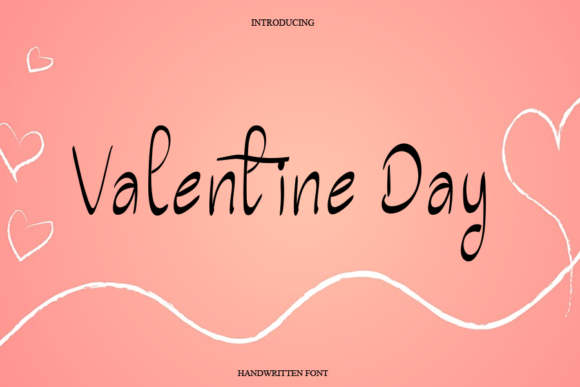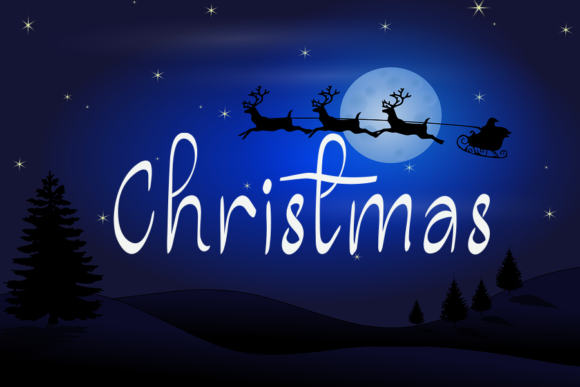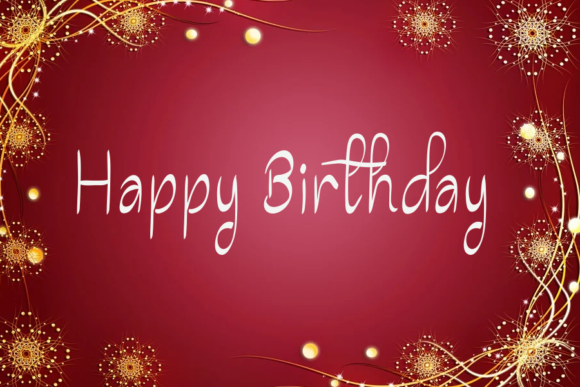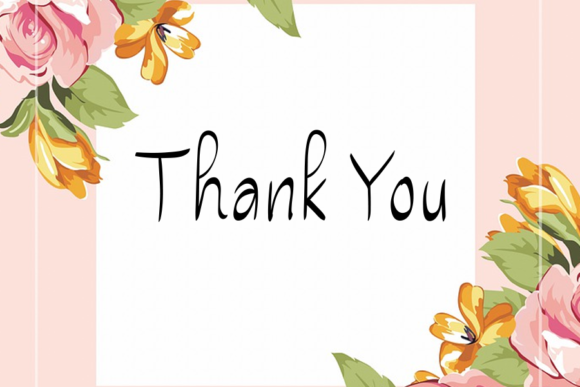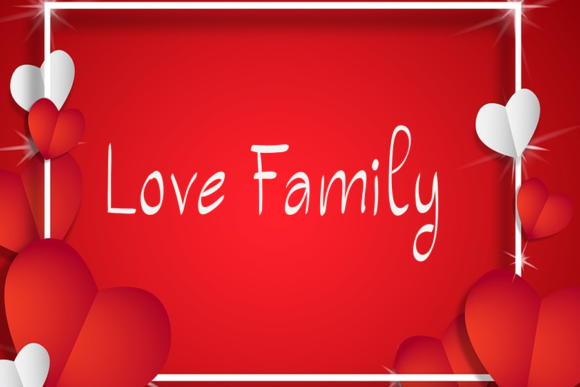
Valentine Day Font
About Valentine Day Font
Valentine Day is a romantic and friendly handwritten font. With its graceful and assorted letters, this font will take any creation to the next level!